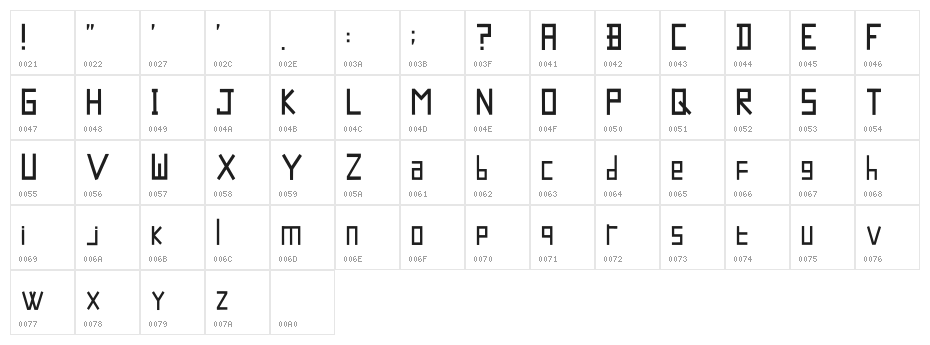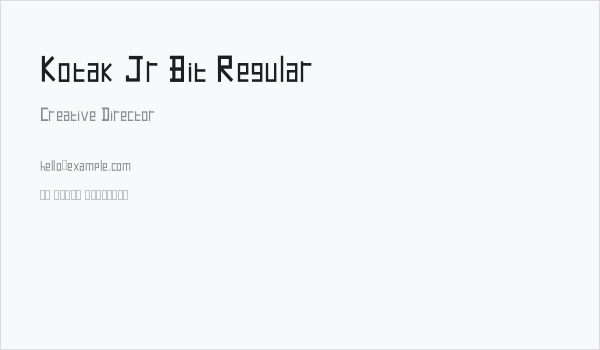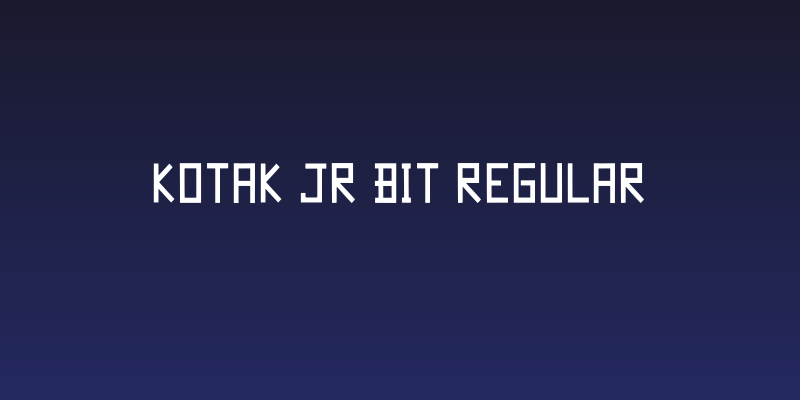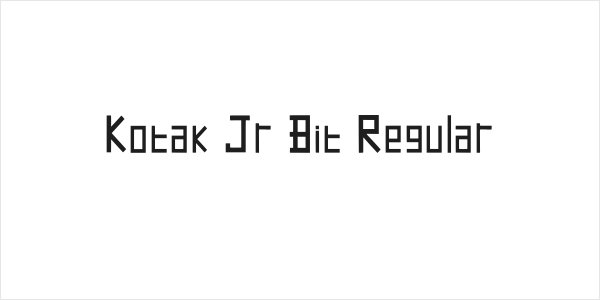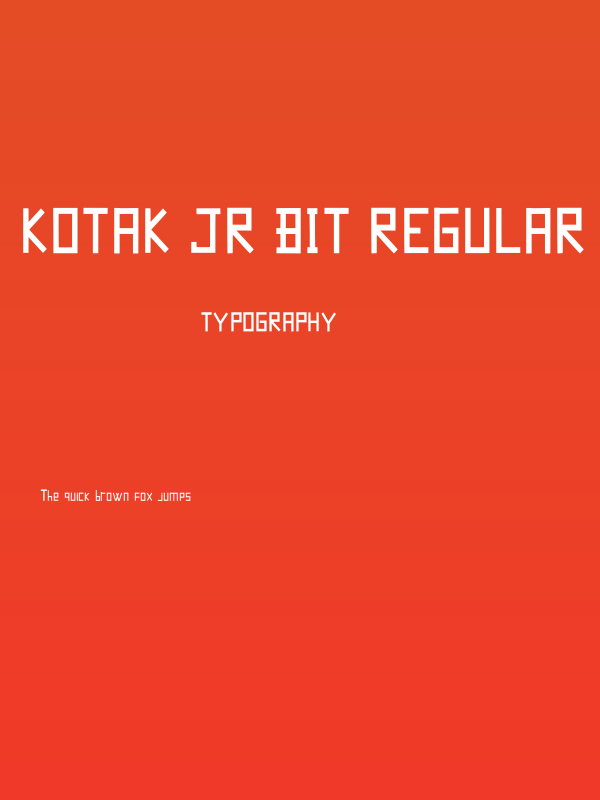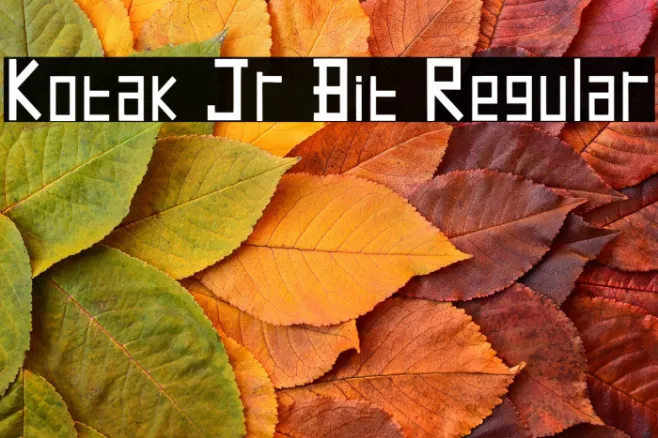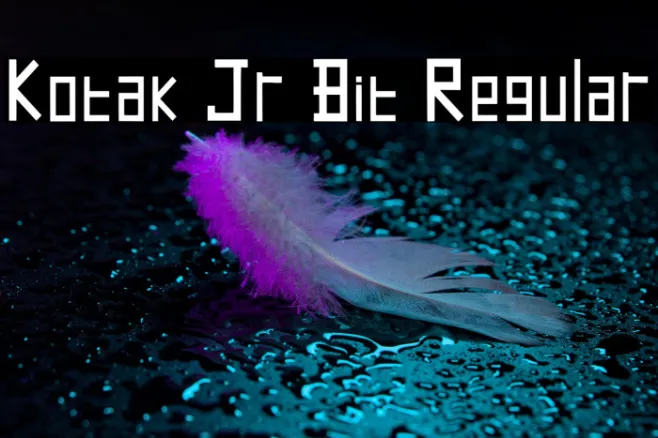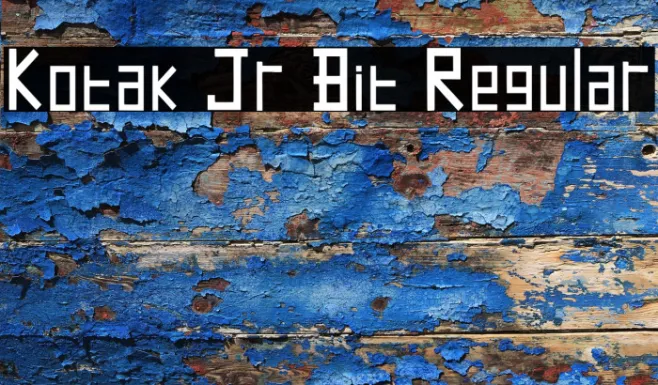
Kotak Jr Bit Regular Font
Kotak Jr Bit Regular Description
This font features a geometric and blocky design, characterized by its angular and straight-edged letterforms. The uppercase and lowercase letters maintain a consistent height, giving it a monospaced appearance. The characters are constructed with uniform stroke widths, contributing to a modern and digital aesthetic. The font includes a full set of uppercase and lowercase letters, numbers, and a selection of special characters. Its structured and rigid style makes it suitable for digital and tech-themed projects.
| Use Case | Logos, Headlines, Digital interfaces |
| Proposed Projects | Ideal for digital interfaces, tech branding, video game design, and futuristic posters. |